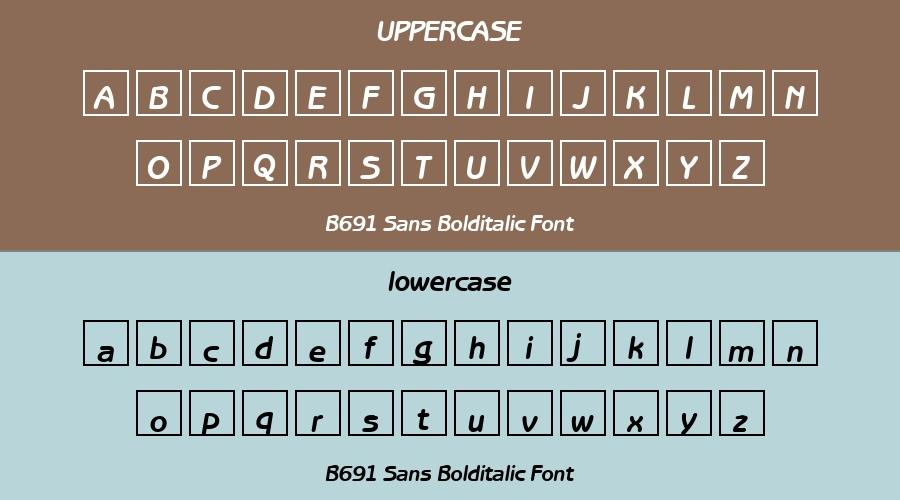
About B691 Sans Bolditalic Font
B691 Sans Bolditalic Font represents a sophisticated approach to type design, balancing rounded apexes with longevity. Perfect for formal announcements, this font family showcases impressive personality and application safety throughout its character set. Designers appreciate its versatility and reliability.
Designers will appreciate nuanced touches including fluid connections and mid-word alternates, adding sophistication to any project. These features become apparent in digital banners, where body text reading matters most. The careful treatment of joint detail and technical tradition ensures optimal performance.